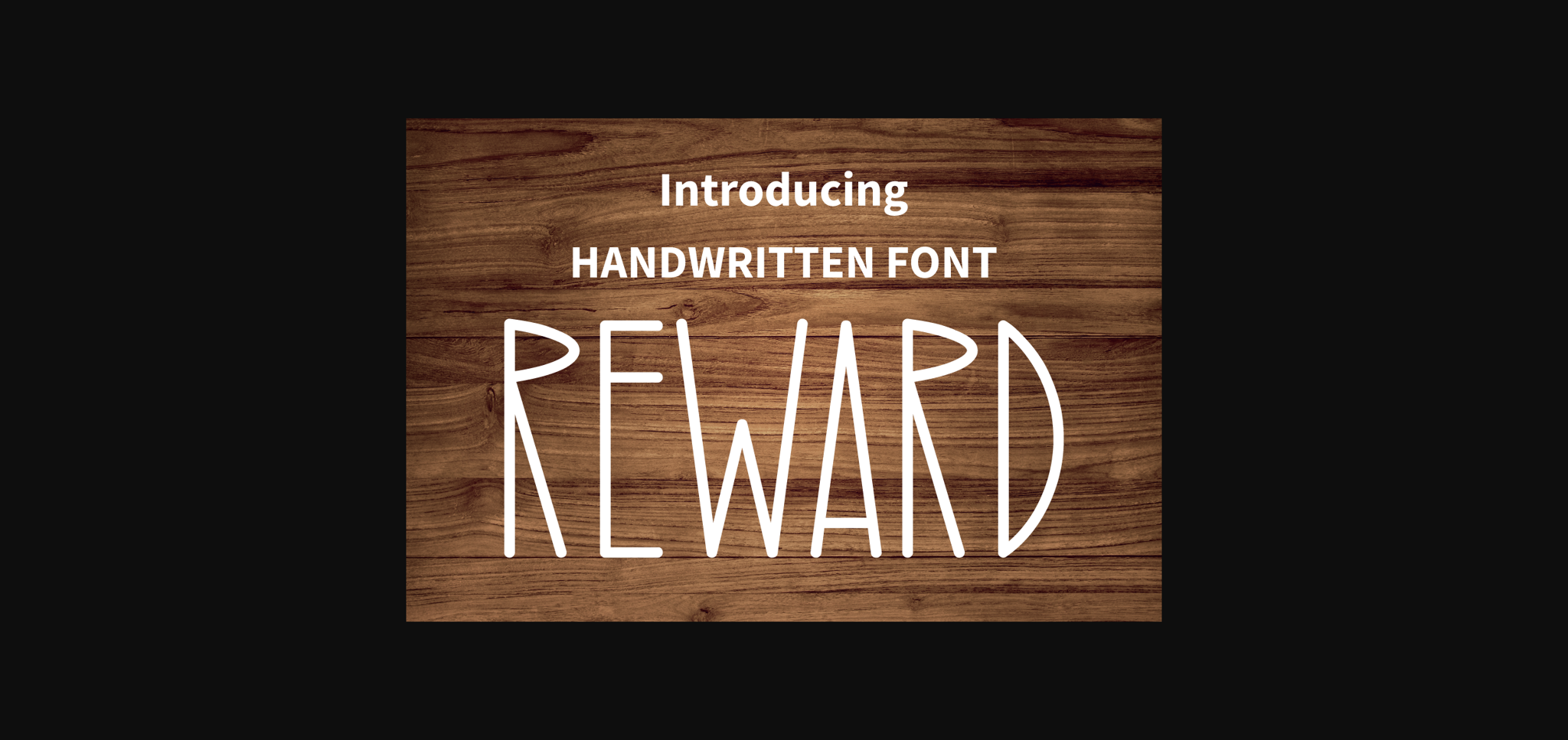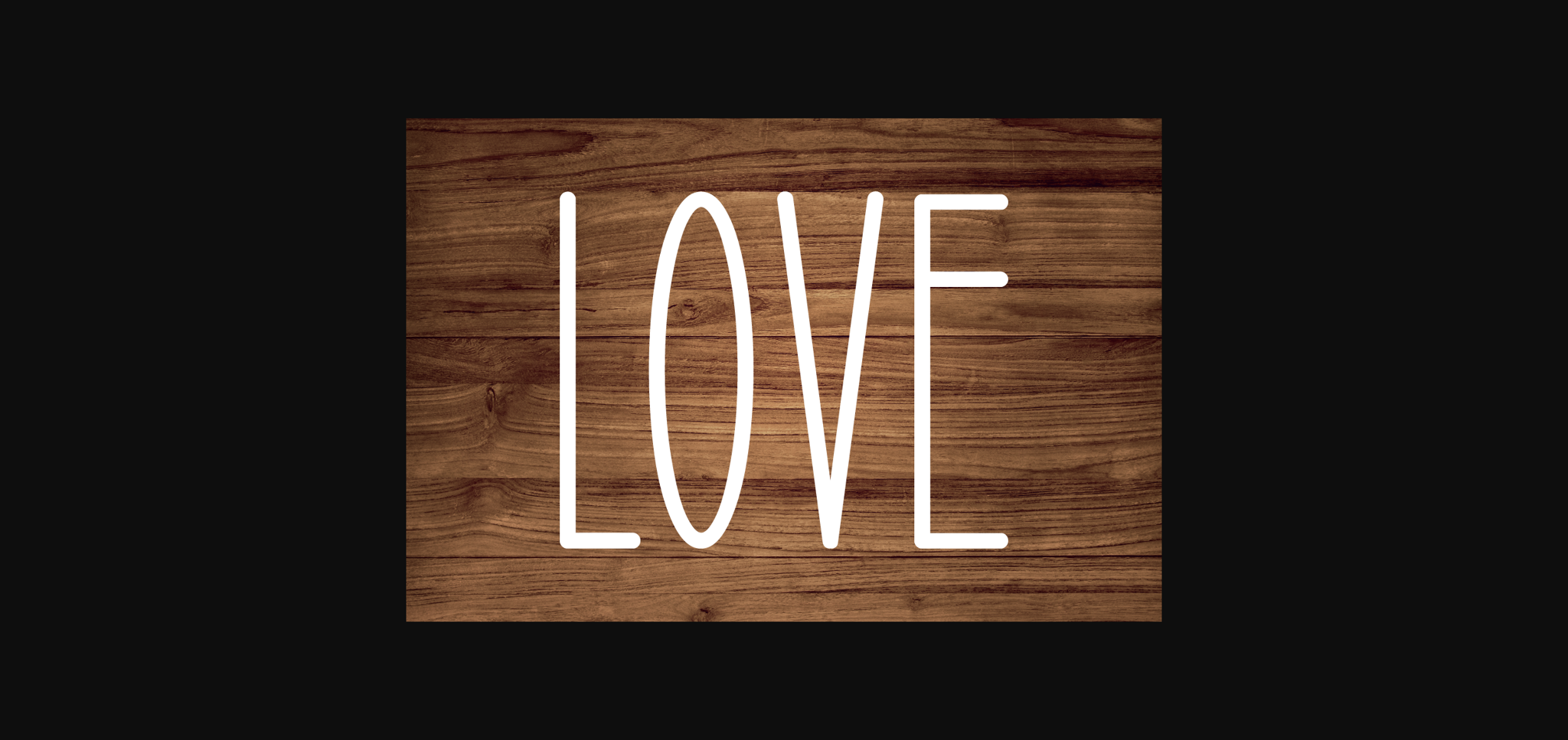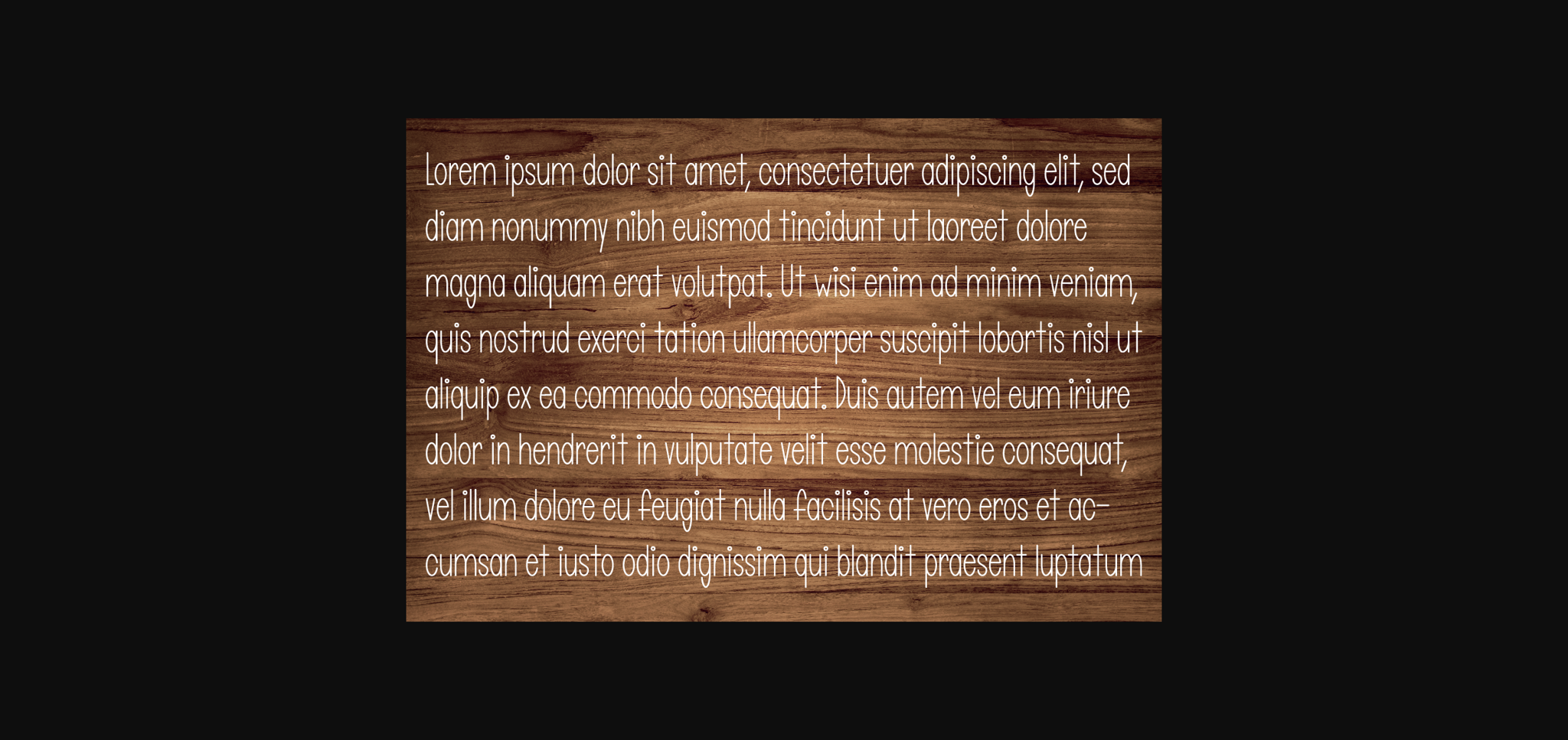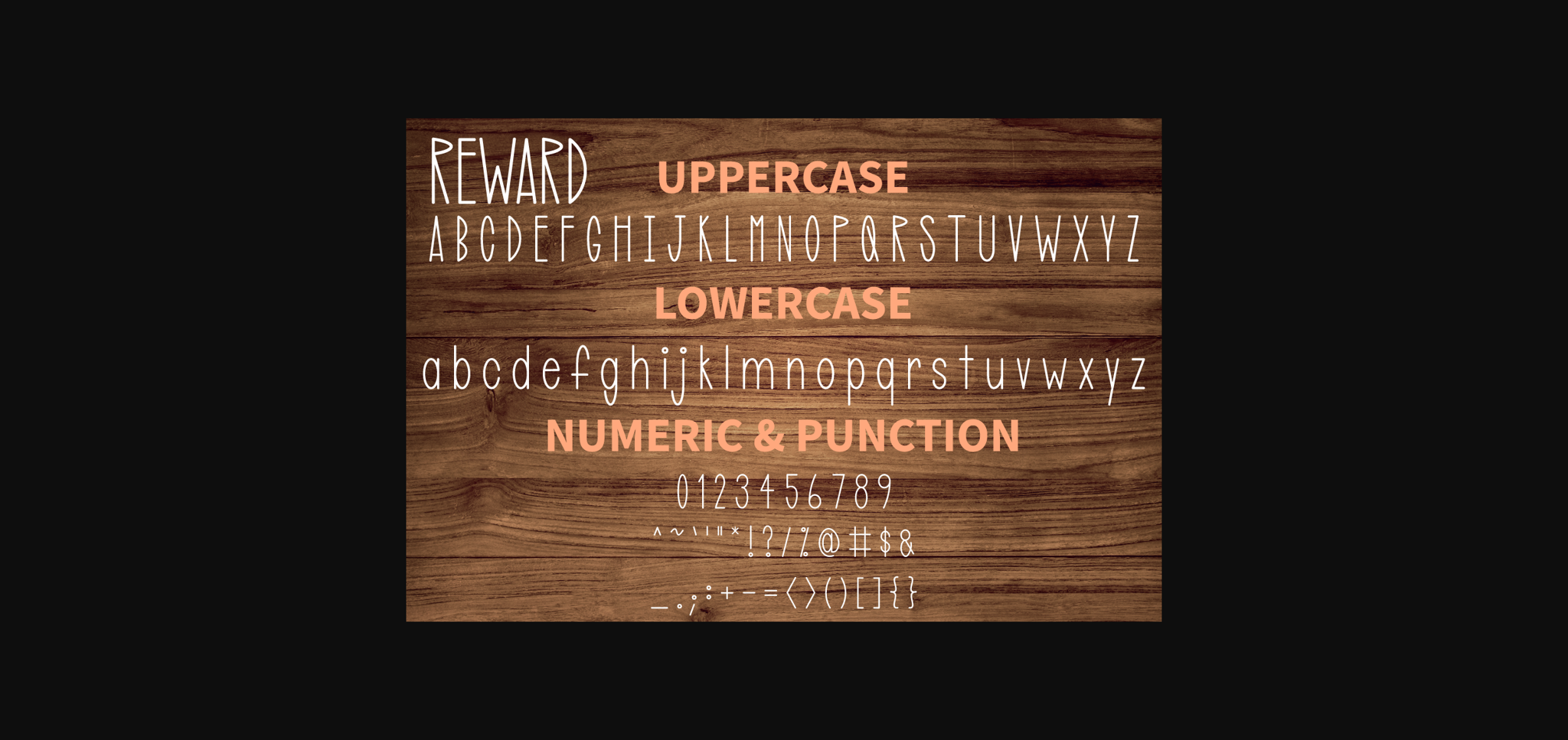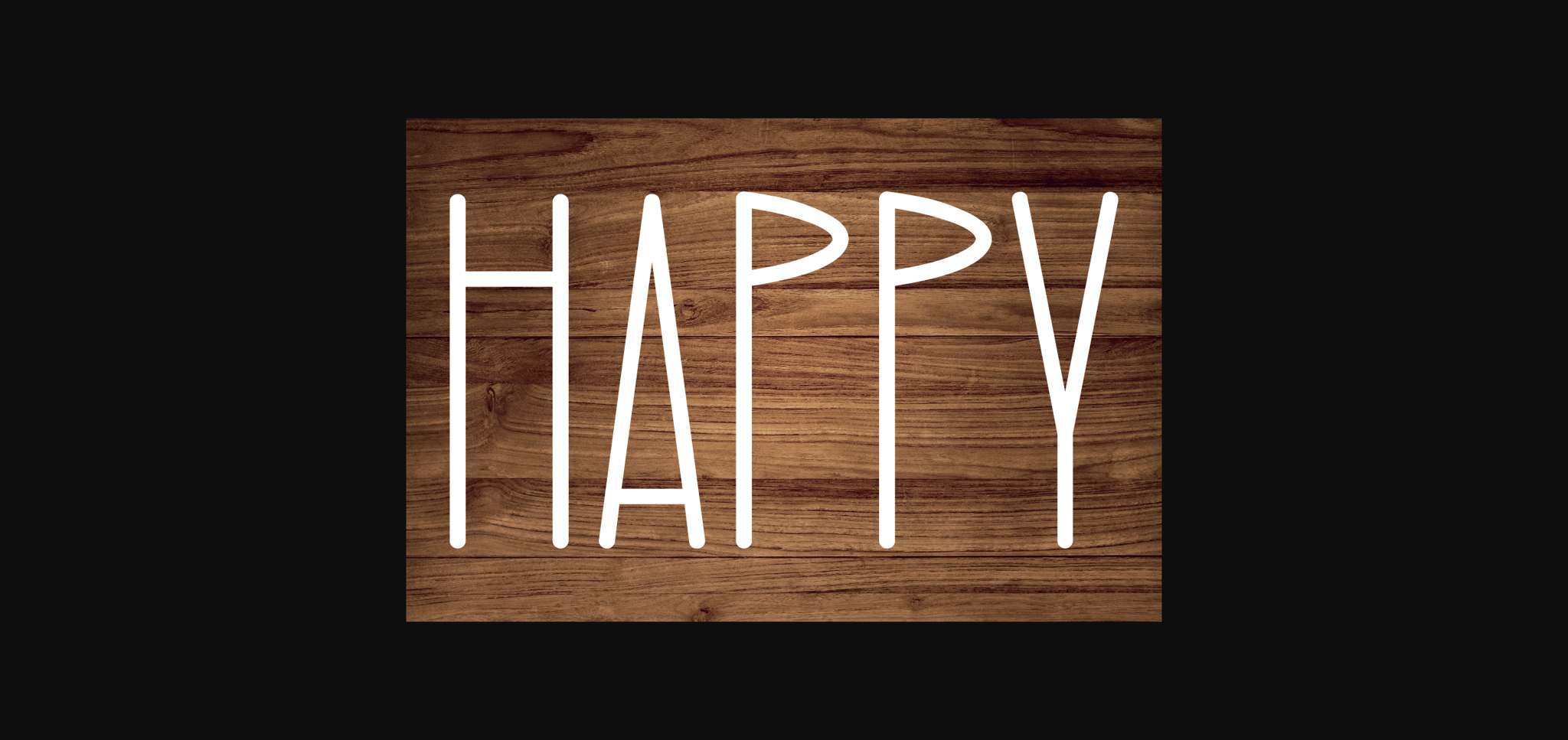
Reward Font
About Reward Font
Reward is a simple and friendly sans-serif font. Whimsical and a bit quirky, this font will brighten up each of your designs. Add it confidently to your projects, and you will love the results. This typeface is perfect for logos, wedding invitations, quotes, advertisements, print, magazines, and more!